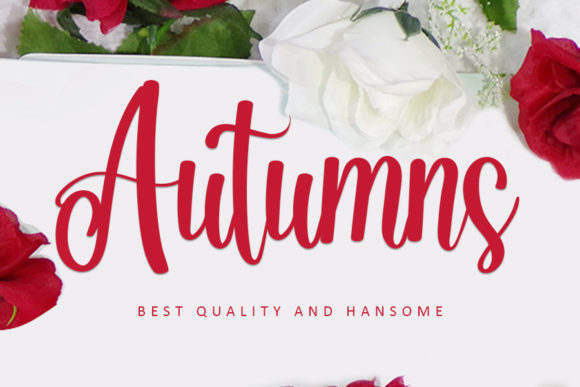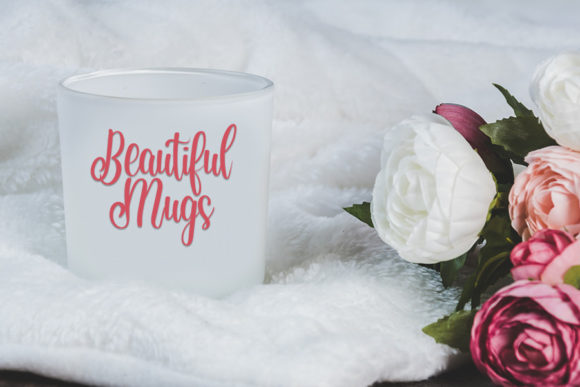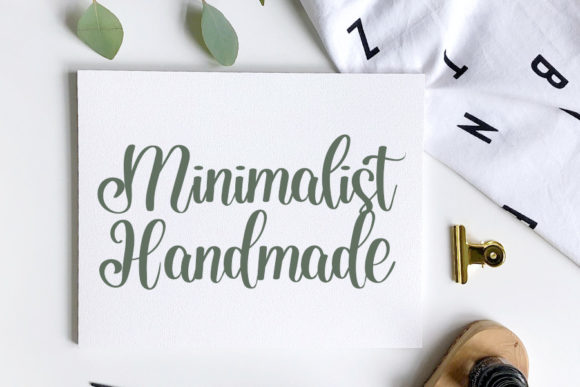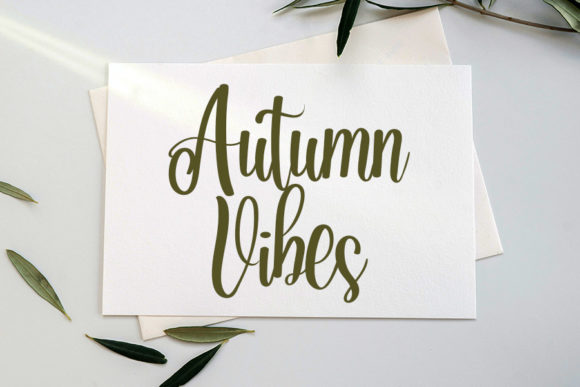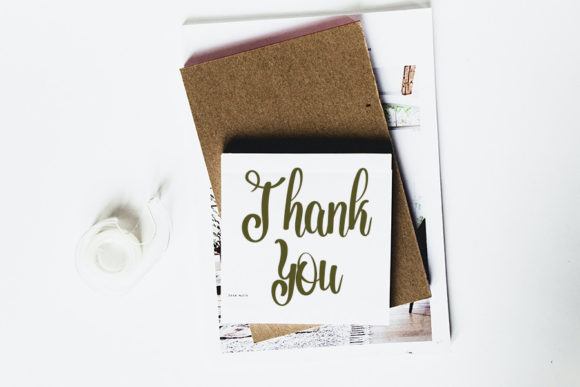
Autumns Font
About Autumns Font
AutumnsĀ is a chic, refined script font that emanates sophistication and elegance. Its stylish alternates and ligatures make this font the perfect match for any project.